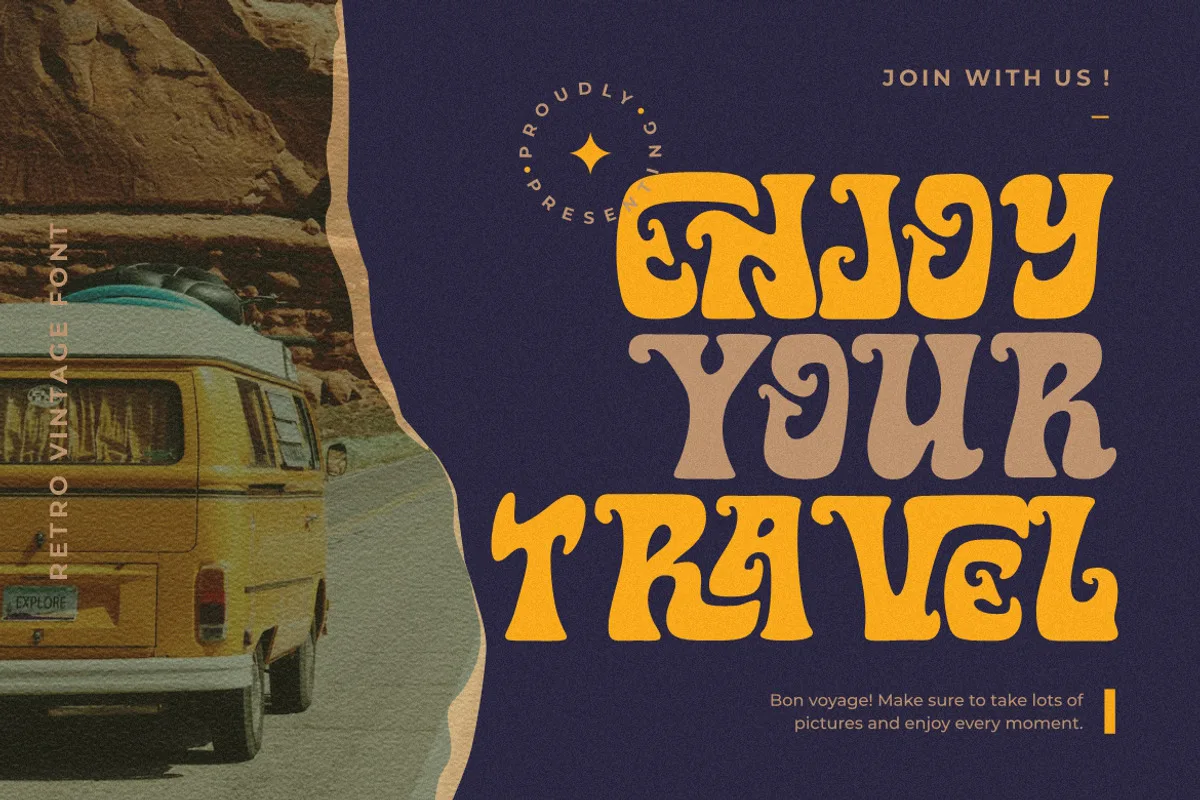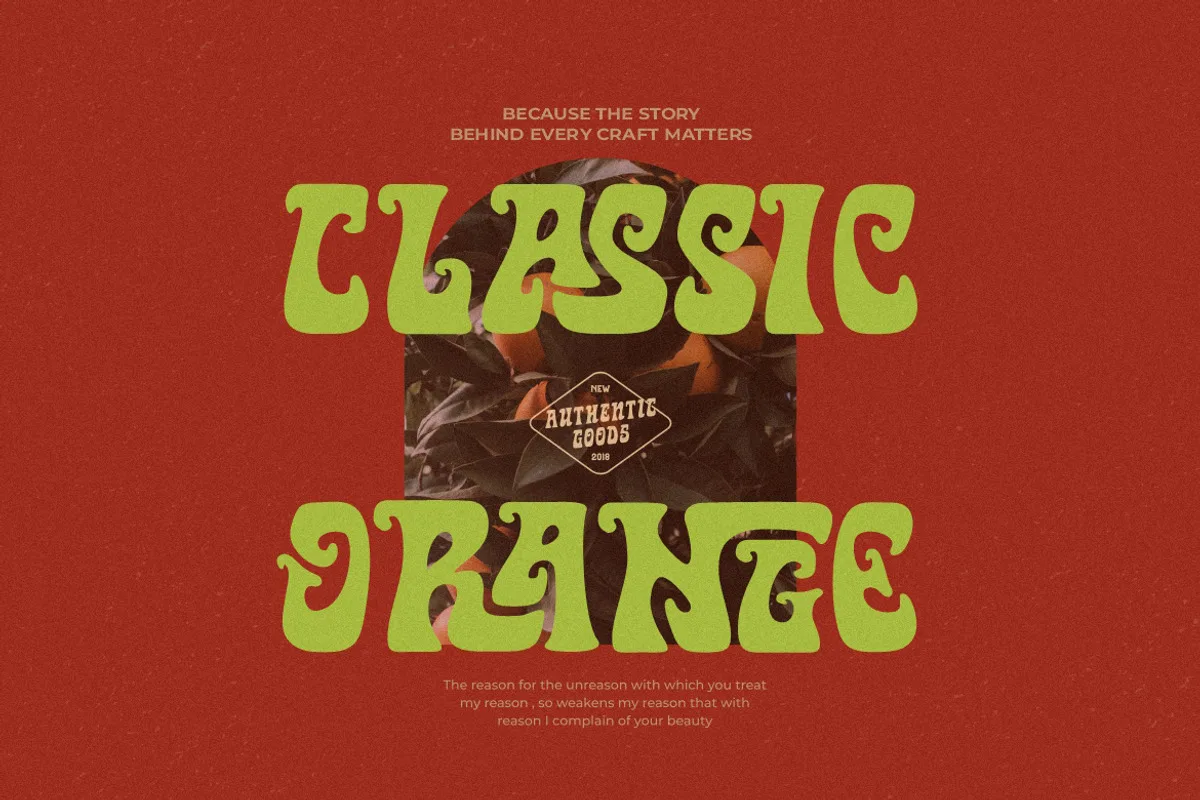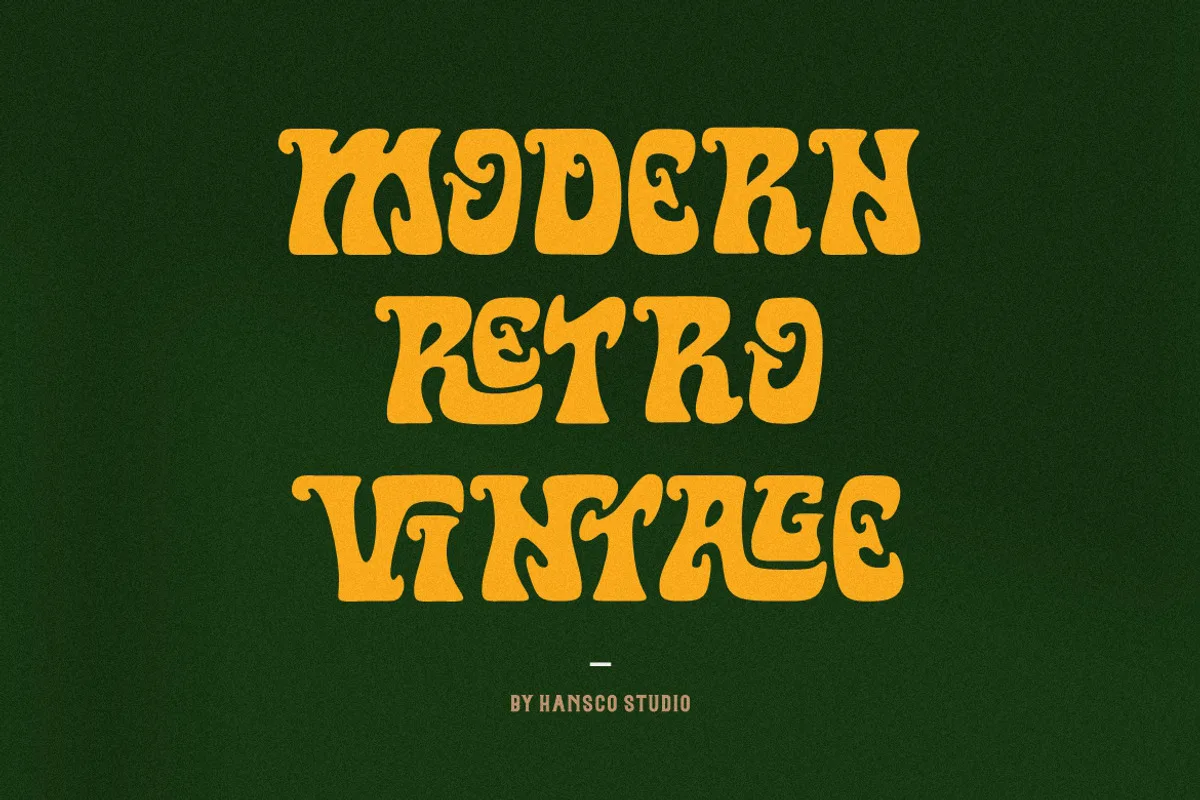
Star Vintage is a retro serif display font was design by HansCo Studio with a slightly bold appearance. You will get ligature characters on some characters. Use this display font to add that special retro touch to any design idea you can think of!
Very suitable for logotype, Stickers, Packaging design, Cricut Project, headlines, brand identity, t shirt or apparel industry, posters, magazines, books, YouTube, Instagram, websites, or any of your creative design projects.